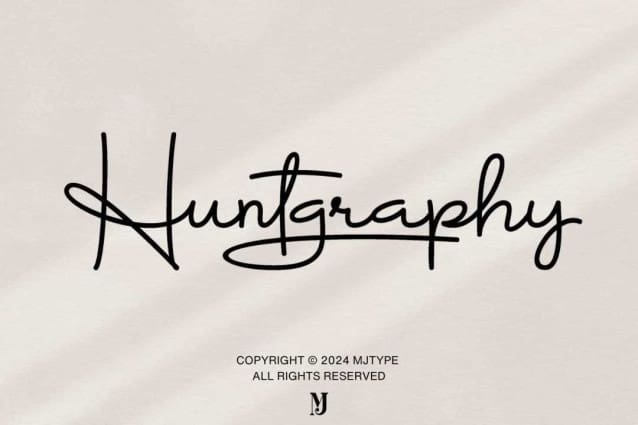
Huntgraphy Script Font
Huntgraphy Script Font is a handwritten signature font with unique curves and an elegant inky flow. It is perfect for branding, photography, watermarks, social media posts, advertisements, logos, invitations, product designs, and more!